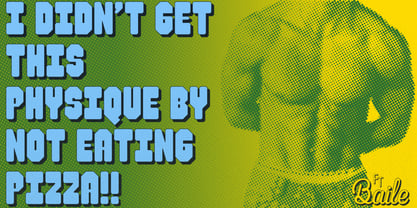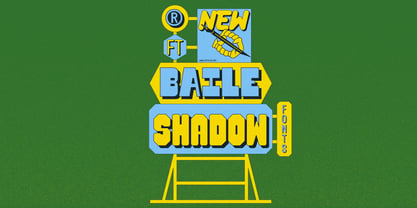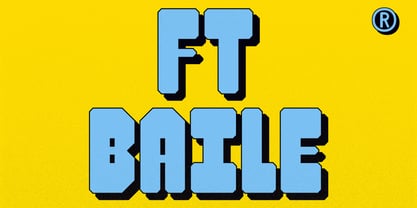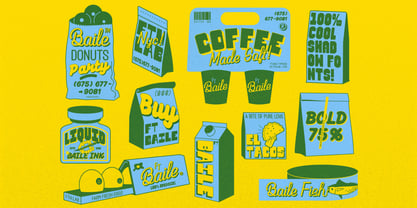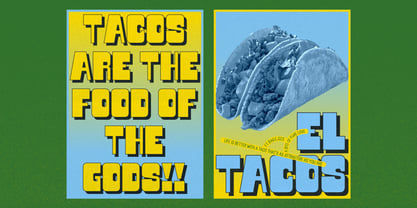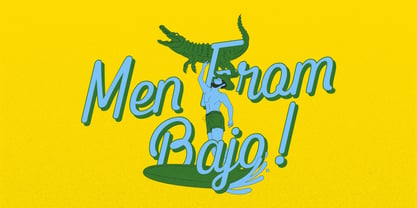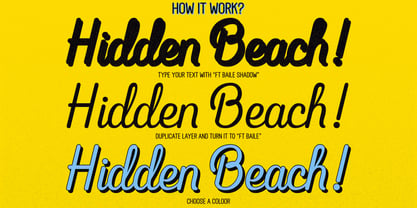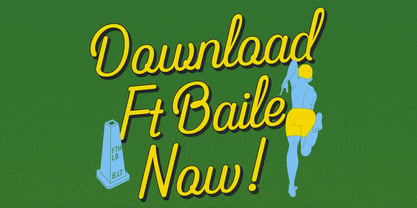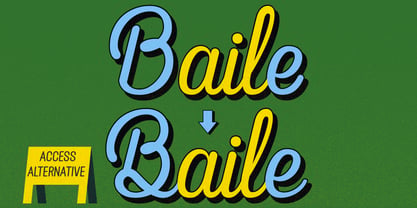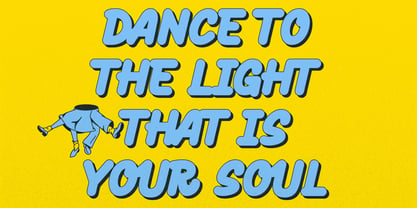
Ft Baile
by Fateh.Lab
The Ft Baile Font Family was designed by Wisnu Cipto Wibowo and published by Fateh.Lab. Ft Baile contains 2 styles. More about this family
Ft. Baile is the latest work of art from Fateh Lab! And yes! This shadow font is perfectly crafted, meticulously crafted, making it a truly unique work of art that stands out from the crowd. This font marks the beginning of a shift in current design trends.
With its soft yet bold typographic style, Ft. Baile embodies all the elements of life in today's design world. It's the perfect answer for those of you who are creating something great.
This font is supported by 5 font styles with a precise level of detail! This is a masterpiece you must own immediately!
This font has a superior boldness for posters, social media, headlines, magazine headlines, packaging, and large print formats—and anywhere you want to see it.
Designers: Wisnu Cipto Wibowo
Foundry: Fateh.Lab